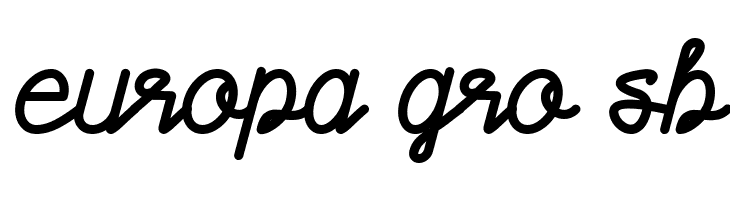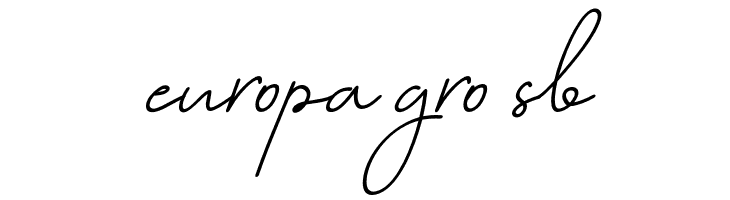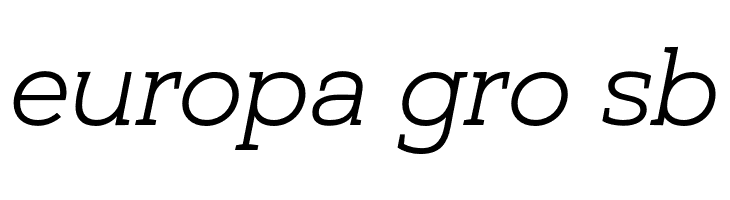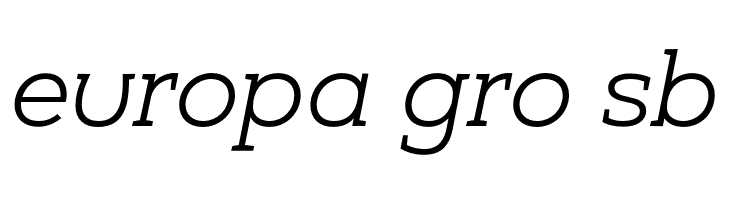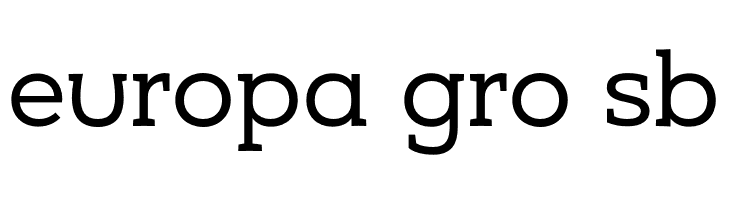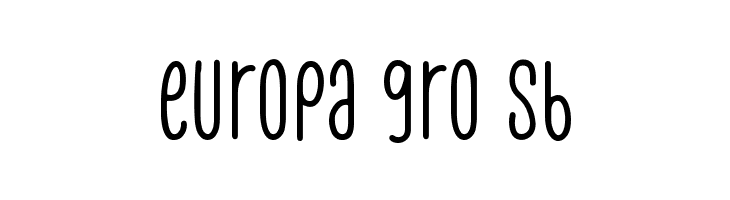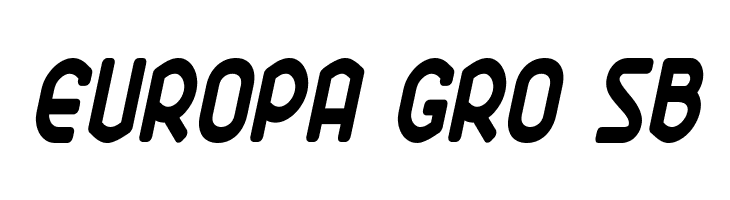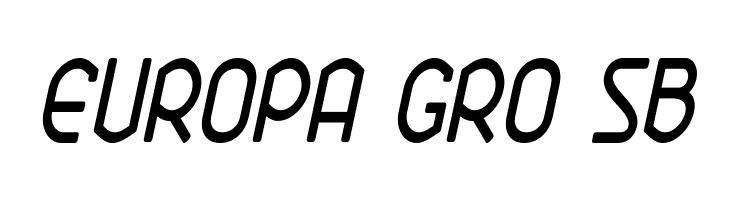
A modern, cursive font with smooth, flowing characters and consistent stroke width.
A bold, modern font with thick strokes and a strong, uniform appearance.
A cursive, handwritten font with elegant, fluid strokes.
A light, italic serif font with a modern and elegant style.
A refined, light, italic slab serif font with a modern and elegant style.
A modern slab serif with geometric shapes and consistent strokes.
A graceful script font with flowing, interconnected strokes and high contrast.
A playful, handwritten font with elongated, narrow characters and a modern, informal style.
A bold, condensed, and rounded italic font with a modern flair.
A modern, rounded, condensed italic font with smooth curves and consistent stroke width.